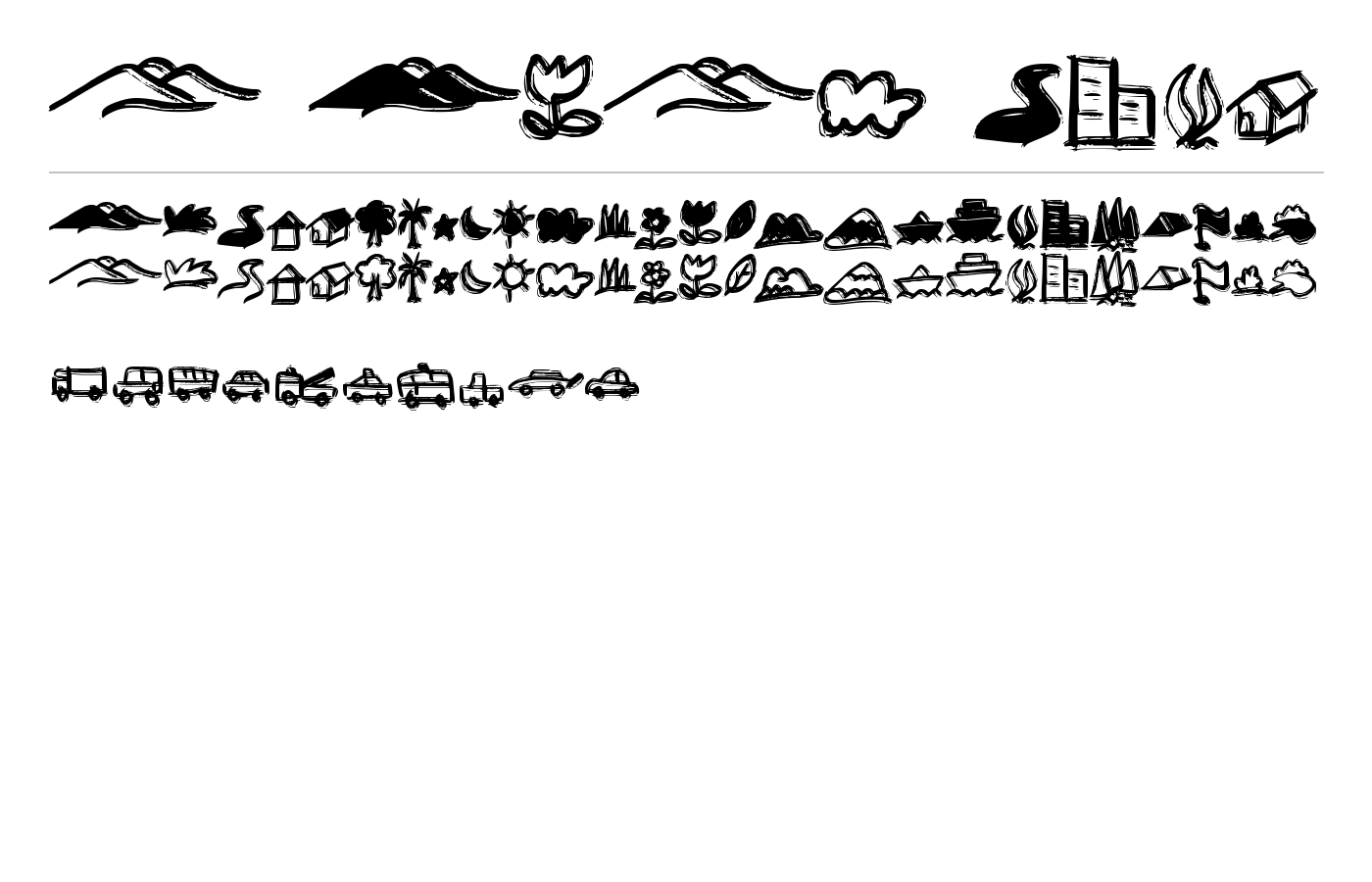
Anak Cute is a playful and hand-drawn dingbat font featuring whimsical icons of nature, buildings, and vehicles with bold, sketchy strokes that give it a lively and informal feel. Its charming, imperfect lines make it perfect for creative projects, children’s designs, and casual branding that seeks a friendly and approachable vibe. This font works well in packaging, posters, and any context where a fun and expressive visual element is needed.
a Anak Cute Font